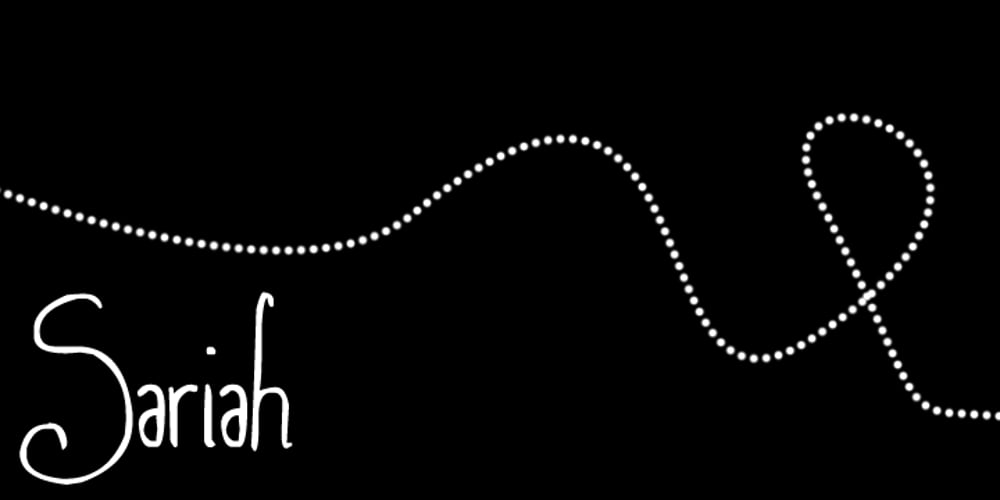
Sariah Font Family was designed by Melinda Jeffs and published by melifonts. Sariah contains 1 styles and family package options. Sariah is a beautifully simple handwritten typeface, composed of clean lines and exaggerated ascenders. It is perfect for a sweet note, a photo caption, an address label, or a graphic print.